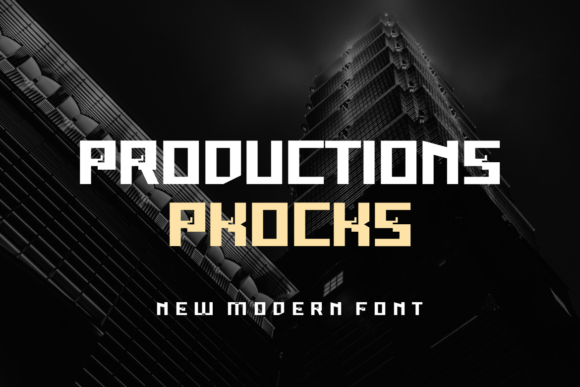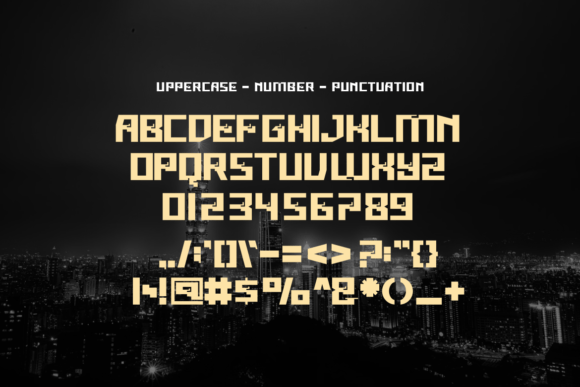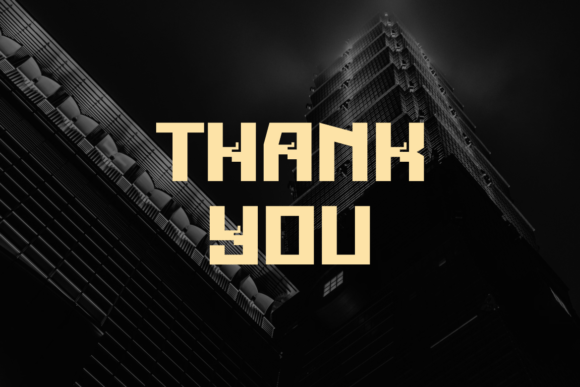
Introduction to Pkocks Font
Have you ever been brainstorming ideas for a creative project, only to hit a roadblock when it comes to choosing the perfect font? You’ve scrolled through countless options, but nothing seems quite right. That’s where Pkocks Font comes in – a game-changing sans serif font that’s sure to elevate your design to the next level.
As a designer, you know how crucial it is to have a reliable design resource that can help you bring your vision to life. Pkocks Font is that resource, offering a high-quality, free download that’s perfect for logos, t-shirt printing, and any other creative project you can imagine.
With its bold and authentic style, Pkocks Font is extraordinary in a variety of contexts – from digital designs to print materials. Whether you’re working on a branding project or need a font with a transparent background, Pkocks Font is sure to deliver.
Key Features of Pkocks Font
• High-quality design resource ideal for creative projects requiring a unique touch
• Includes a transparent background, allowing for seamless integration with various design elements
• Features a unique and stylish design that sets it apart from other fonts in its class
• Perfect for use in logos, branding materials, and other design projects where a distinctive font is required
Honest Review: Pkocks Font
As a designer, I’m always on the lookout for high-quality design resources to elevate my creative projects. Recently, I stumbled upon the Pkocks Font, and I must say, it’s a solid addition to my design arsenal.
• ✨ High-quality design: The Pkocks Font boasts crisp, clear lines and a beautiful, elegant feel that makes it perfect for a wide range of creative projects.
• ✨ Transparent background: The font includes a transparent background option, allowing for seamless integration with any design element.
• ⚠️ Limited character set: The Pkocks Font is a bit limited in terms of character set, which may not be ideal for designers who require a wide range of characters for their projects.
• ⚠️ Not suitable for small text: Due to its elegant design, the font may not be the best choice for small text sizes, as it can become difficult to read.
Overall, I’m impressed with the Pkocks Font, and I’d highly recommend it to designers looking for a high-quality, elegant font for their creative projects. Just be aware of its limitations, and you’ll be all set to create stunning designs with this beautiful font.
Pkocks Font is a versatile font that can be used in a variety of creative projects, including branding, marketing materials, and web design. It’s also a great choice for creating invitations, posters, and other visual communications. With its high-quality design and transparent background, Pkocks Font is a valuable resource for any designer or artist.